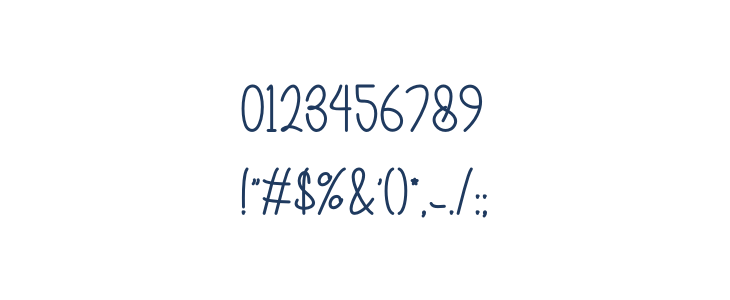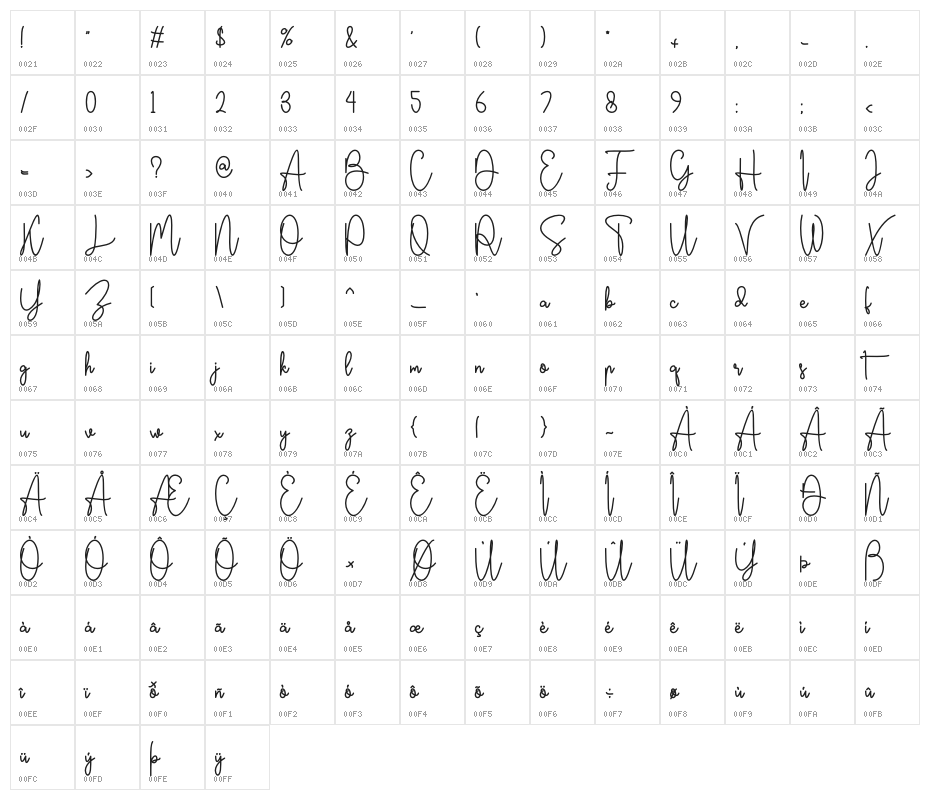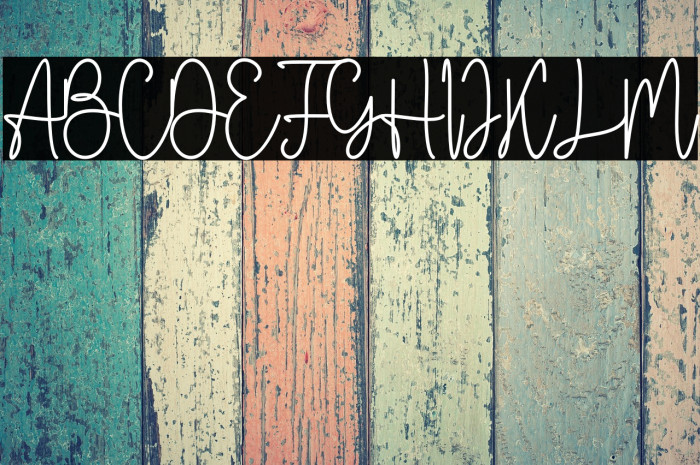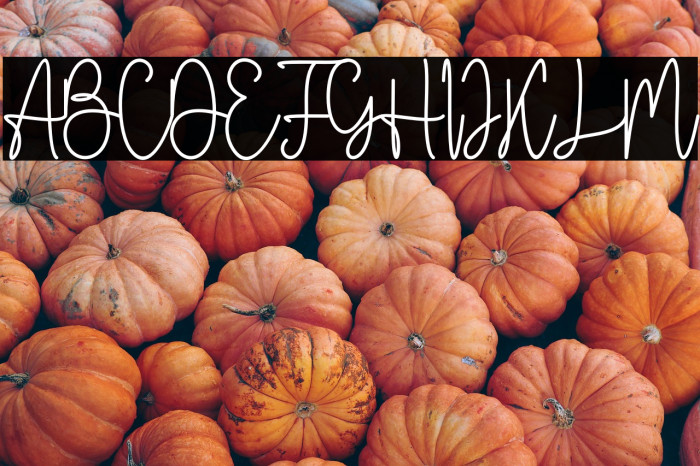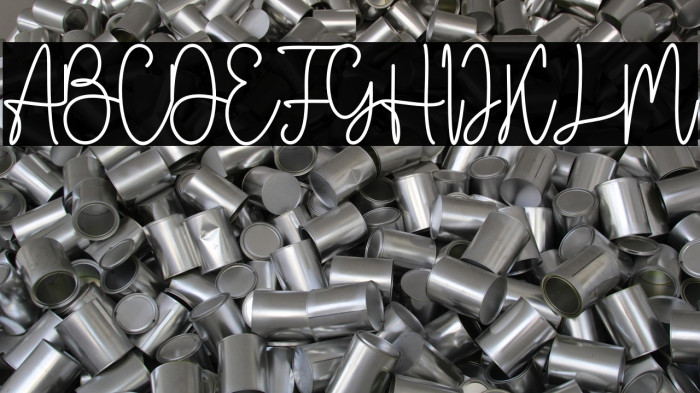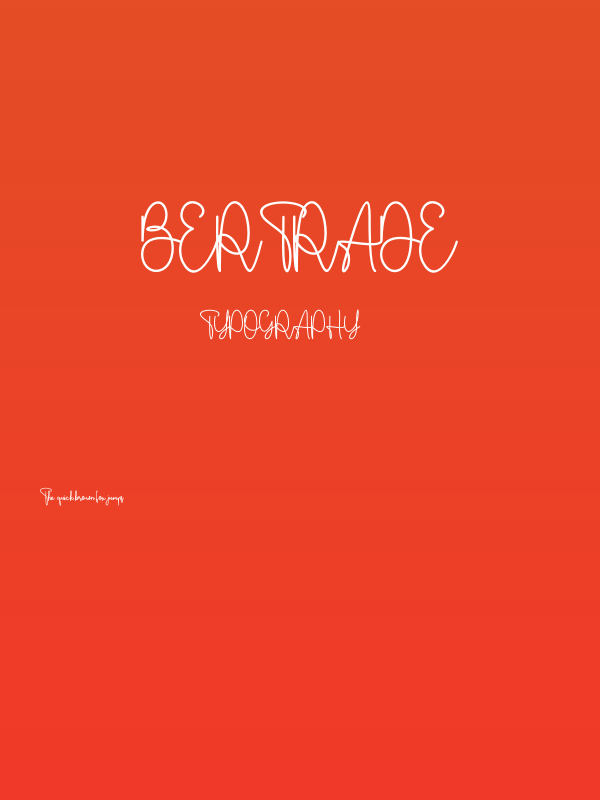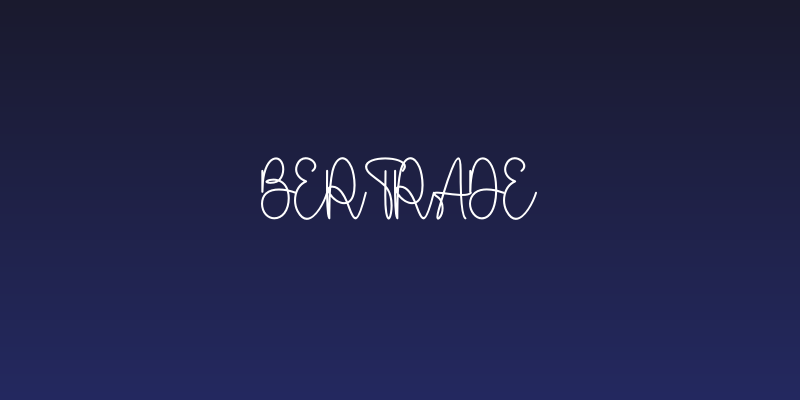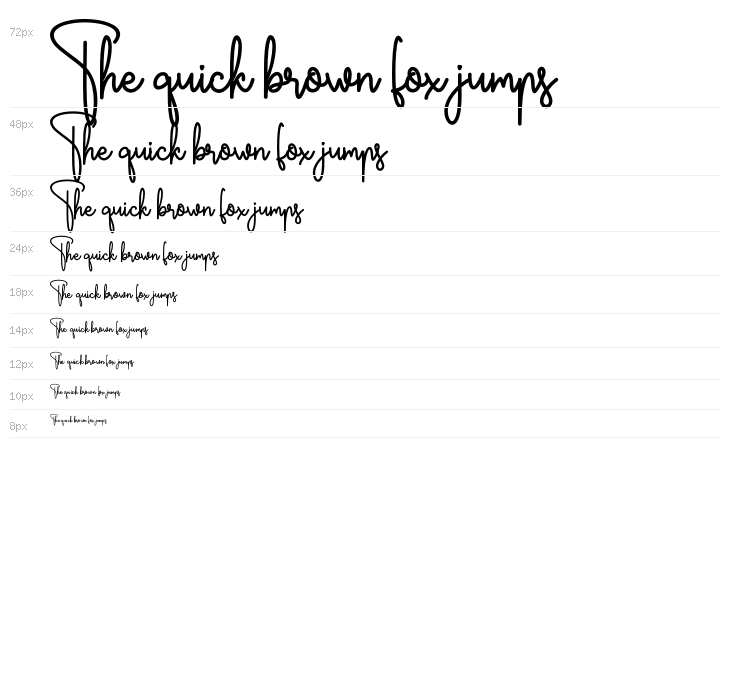
Bertrade Font
Bertrade Description
This font features a playful and expressive handwritten style with a casual, flowing appearance. The uppercase letters are tall and slightly condensed, giving a sense of elegance and sophistication. The lowercase letters maintain a consistent baseline with smooth, rounded curves, enhancing readability while retaining a personal touch. The numerals are clear and distinct, matching the overall aesthetic of the font. Special characters are creatively integrated, adding versatility for various design applications. The font's unique charm makes it suitable for projects that require a personal, friendly, and approachable feel.
| Width | Condensed |
| Overall Style | Casual |
| Use Case | Logos, Headlines, Invitations |
| Proposed Projects | Ideal for greeting cards, invitations, personal branding, and social media graphics. |